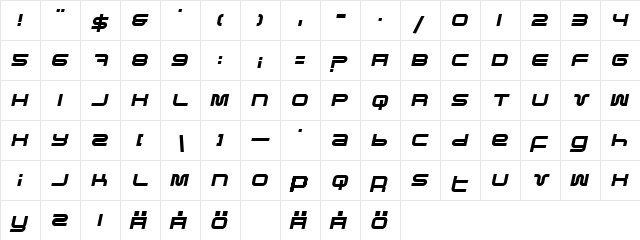
Pfuk Italic
Design Context for Pfuk Typeface
Pfuk takes a measured approach to typography — its balanced proportions and neutral character make it a reliable workhorse for both digital and print work. Its italic angle brings a sense of urgency and motion to the letterforms.
Pro Tip: Use Pfuk for emphasis, pull quotes, and subheadings where its slanted energy can add rhythm to the layout.